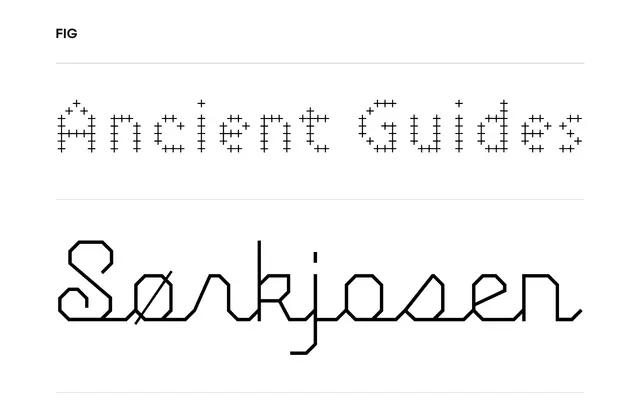
FIG
Process Type Foundry · Eric Olson · 2002
A trio of typefaces built on the reductionist logic of FIGlet ASCII art, each constructed from a single repeated symbol.
FIG Sans is made entirely from the + symbol, FIG Serif from the *, and each letterform is built up from that single element alone. FIG Script departs from that rigid grid, arriving at an upright script with swooping ascenders and descenders drawn from primitive geometry. All three were designed by Eric Olson in 2002 as a tribute to the FIGlet program created by Frank Sheeran, Ian Chai and Glenn Chappell.
FIG is categorised as display due to its highly conceptual, reductionist construction derived from ASCII art and FIGlet; each letterform is built from a single repeated symbol, making it unsuitable for extended text use.